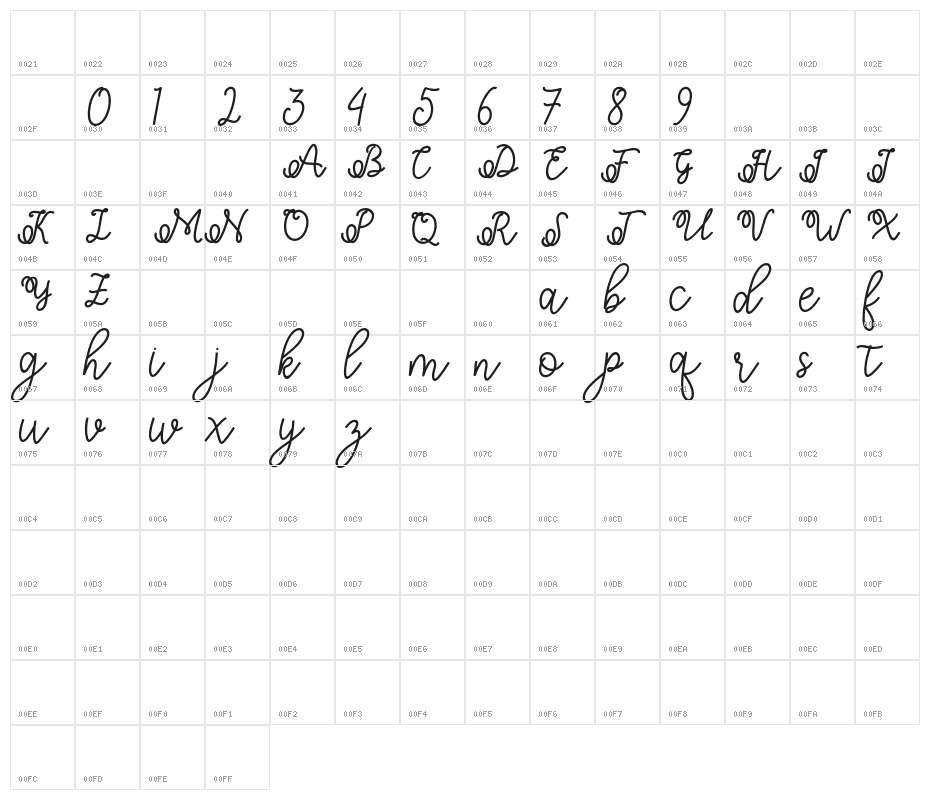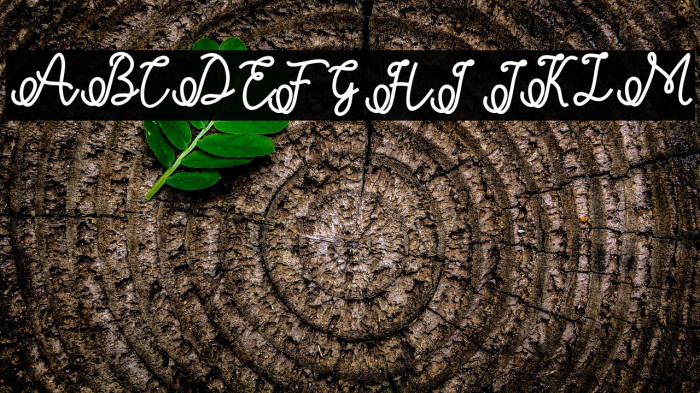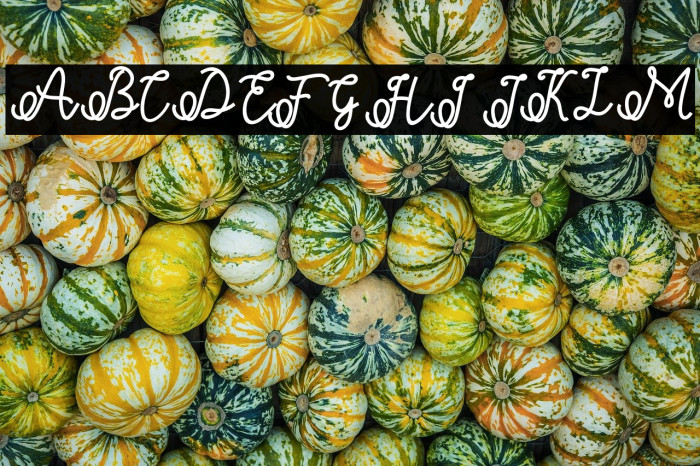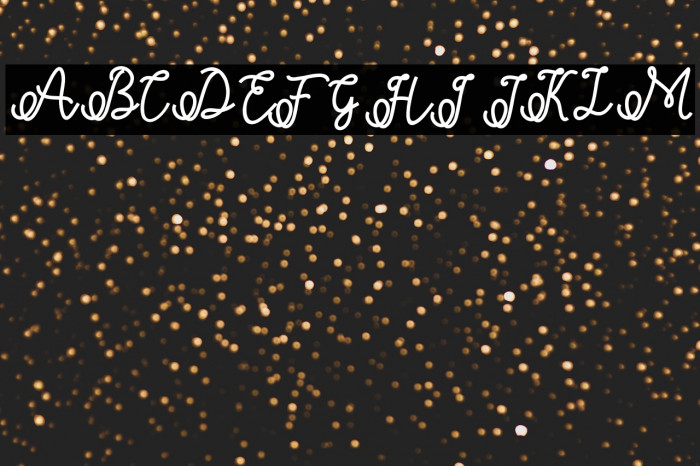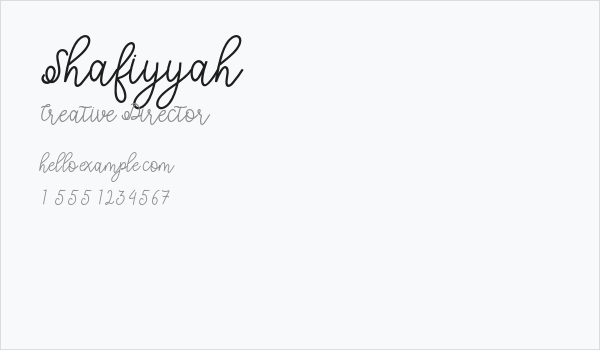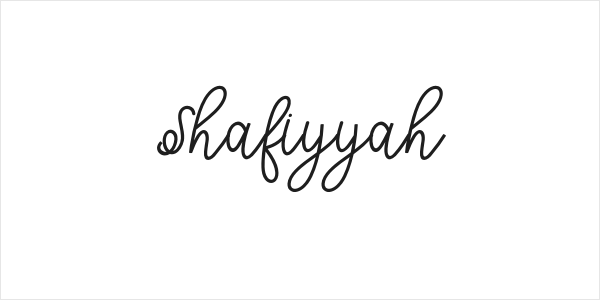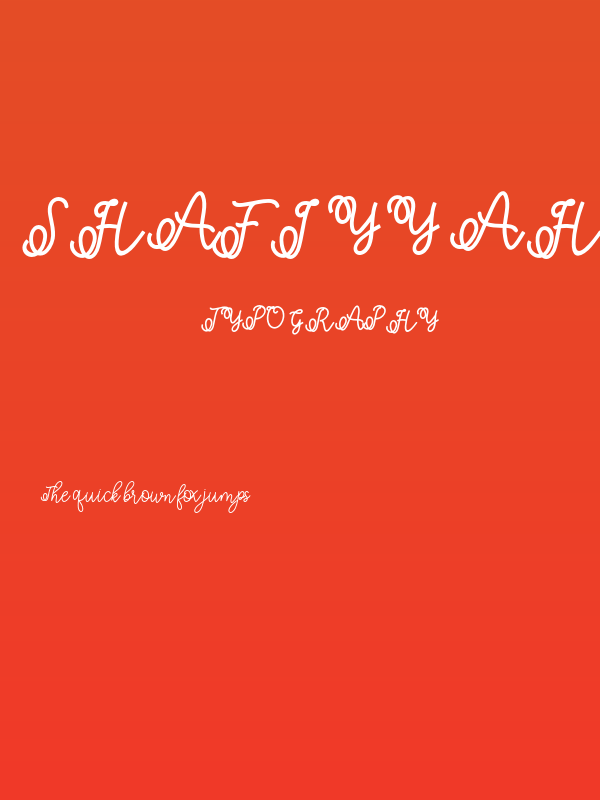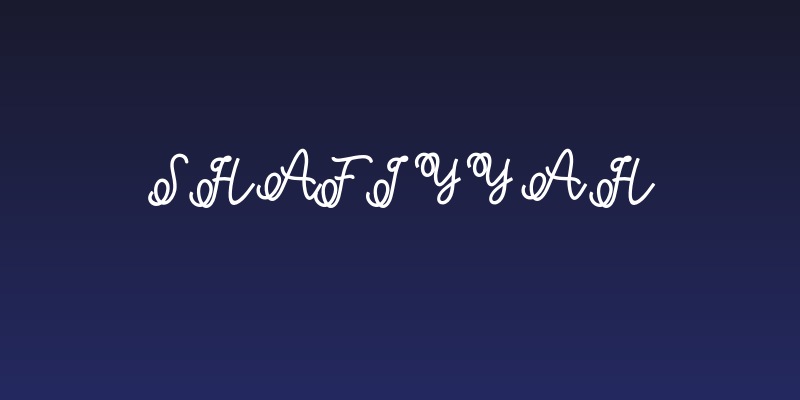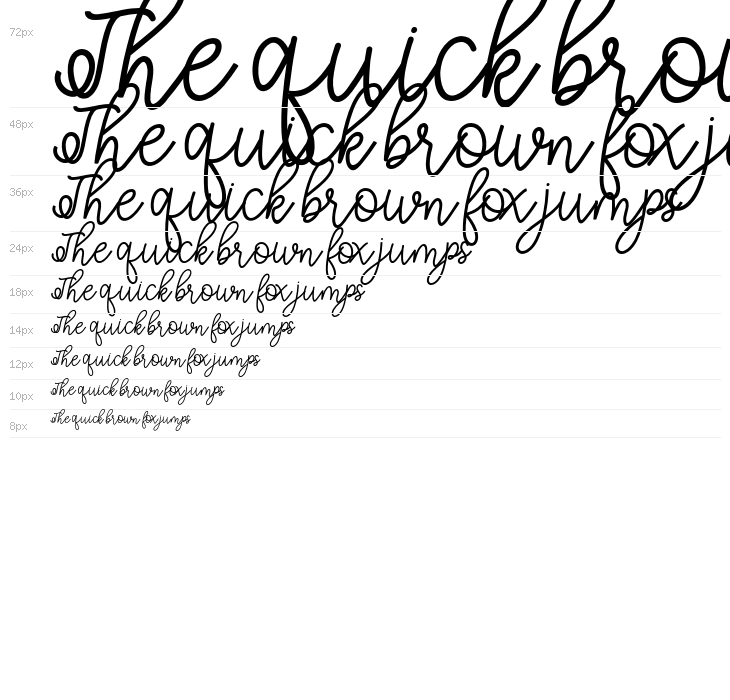
Shafiyyah Font
Shafiyyah Description
This font features an elegant, flowing script style that mimics the fluidity of cursive handwriting. The uppercase letters are characterized by their intricate loops and swirls, giving them a sophisticated and decorative appearance. The lowercase letters maintain a consistent slant and are connected, enhancing the script's natural flow. Numerals are clear and legible, with a slight slant that complements the overall cursive style. The font's design is both artistic and readable, making it suitable for a variety of creative applications.